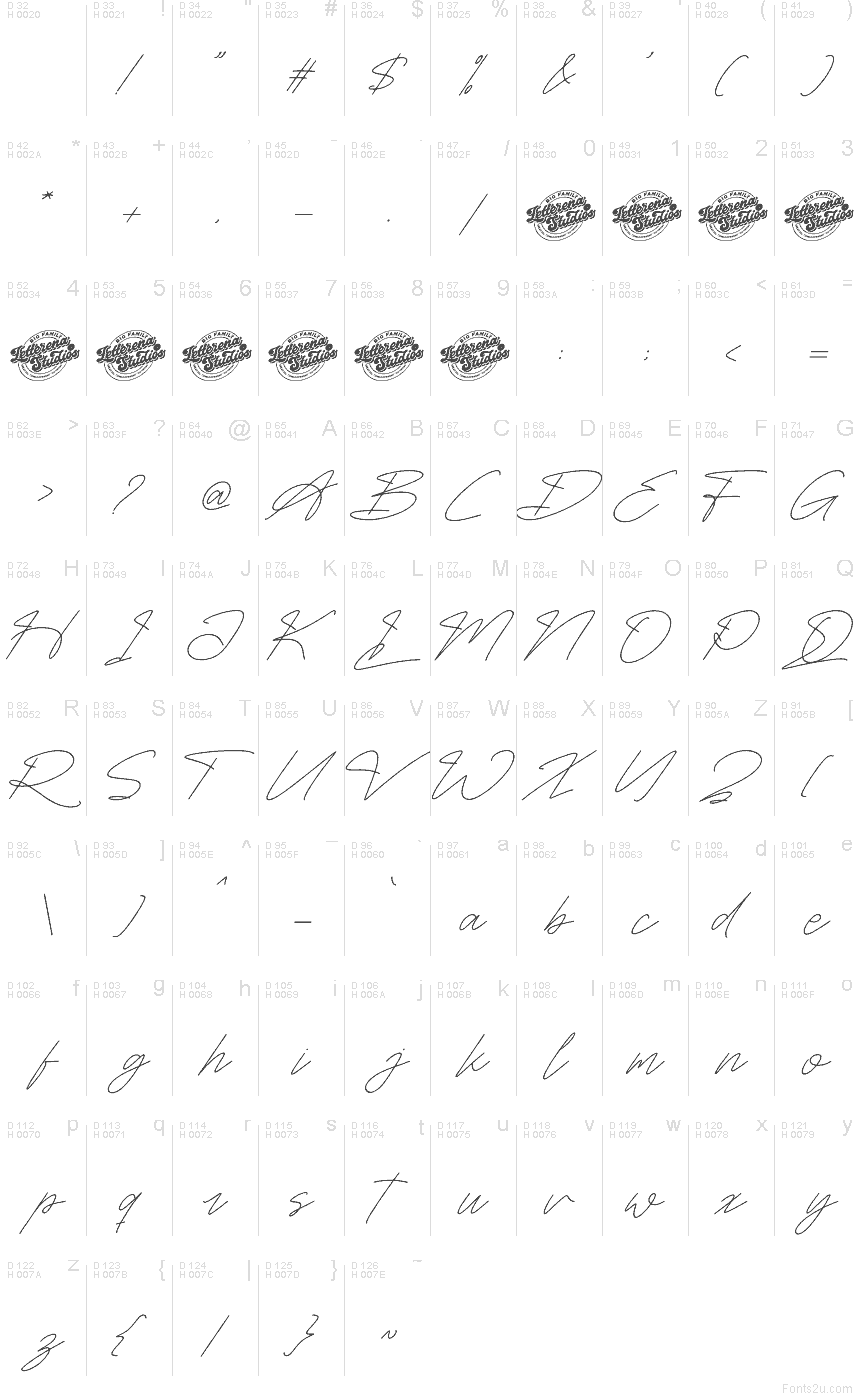
Fasthine Brooks DEMO VERSION Italic
Fasthine Brooks Italic font by Letterena Studios is a free handwritten script font that feels like a quick, elegant signature swept across the page. Its ultra-slim strokes and loose, tilted rhythm look as if they were written with a fine gel pen on smooth paper—light, a bit airy, and effortlessly stylish. The Fasthine Brooks family gives it a refined continuity, so even a few words carry a strong, personal presence.
Using Fasthine Brooks Italic, you can add a chic handwritten touch to logos, signatures, social media posts, product packaging, invitations, thank-you cards, and watermark branding. The generous spacing keeps this free font legible even at smaller sizes, but it really shines when you let it breathe in large headings or name marks. Pair it with a clean sans serif for body text to balance its flowing, delicate lines.